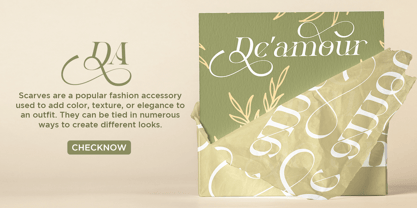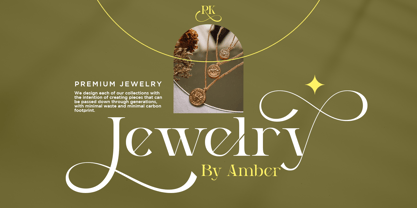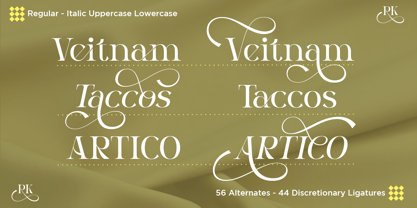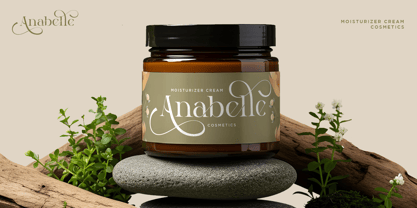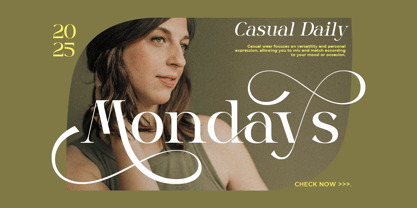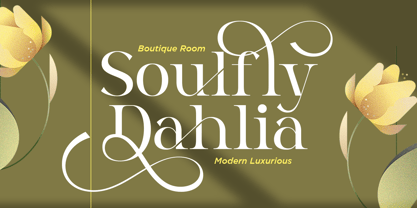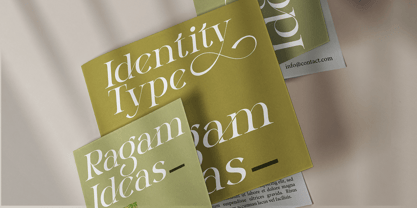
Dalnite
by RagamKata
The Dalnite Font Family was designed by Yogiswhara Dio Prakoso Riadi and published by RagamKata. Dalnite contains 2 styles and family package options. More about this family
Dalnite is a modern luxury serif that exudes timeless sophistication and editorial charm. With elegant ligatures, refined alternates, and balanced contrasts, it’s designed to elevate your branding, fashion, or wedding projects. Perfect for high-end logos, magazines, invitations, and packaging, Dalnite brings a graceful modern touch to every visual identity. Available in regular, italic, and alternate styles for complete creative flexibility. File Included : - Dalnite Regular - Dalnite Italic - Stylistic Alternates - Stylistic Ligatures - Multilingual Support Thanks, Have a wonderful day Ragamkata Studio
Designers: Yogiswhara Dio Prakoso Riadi
Foundry: RagamKata